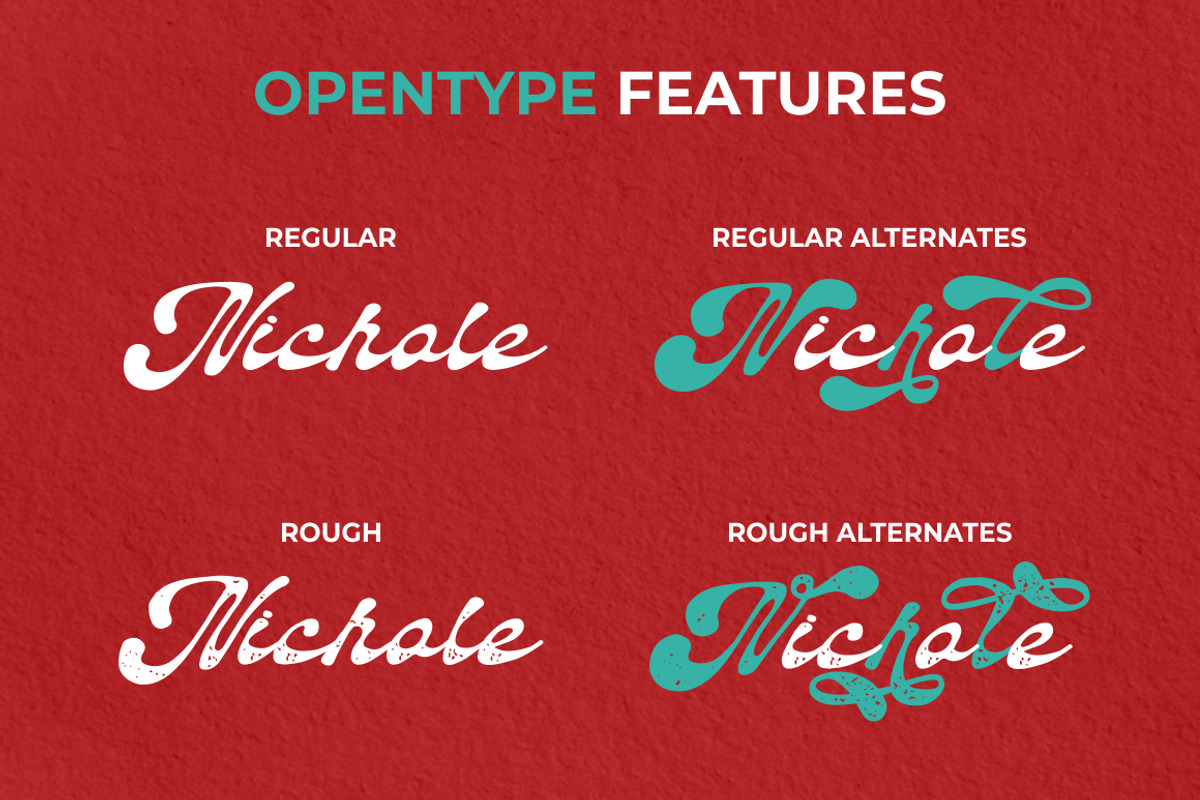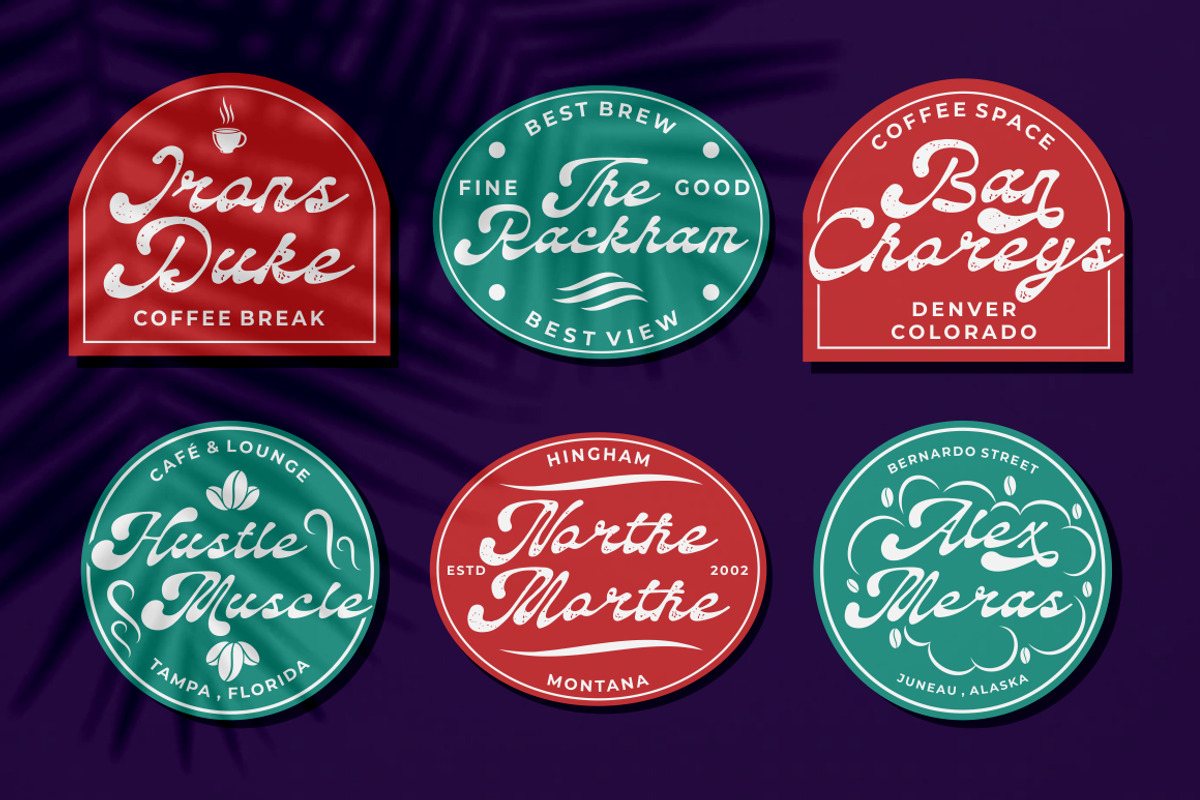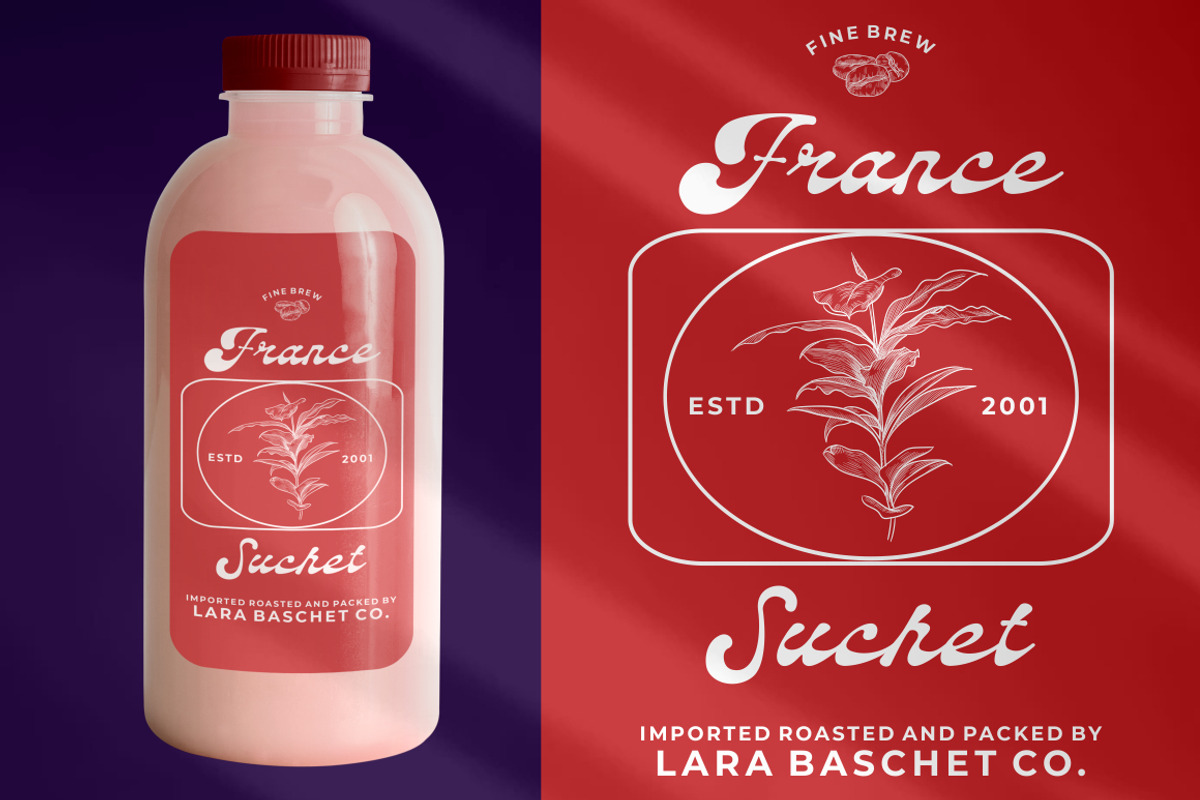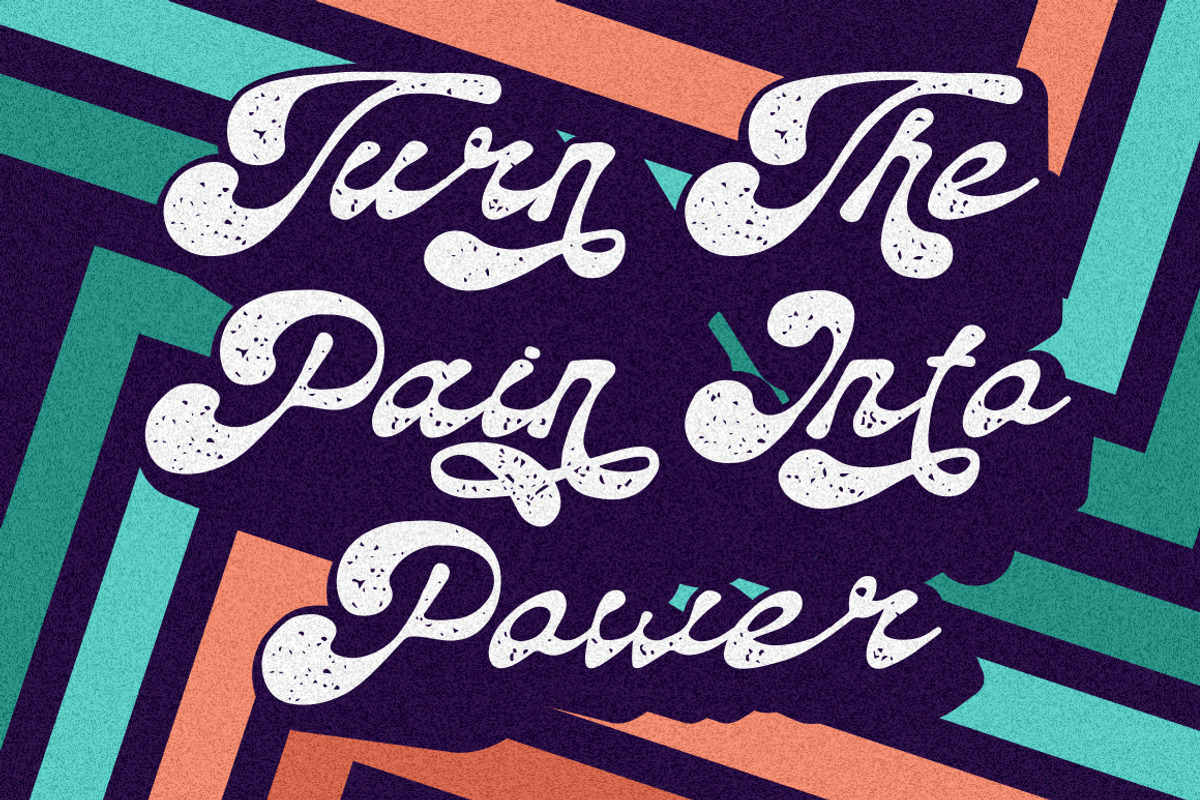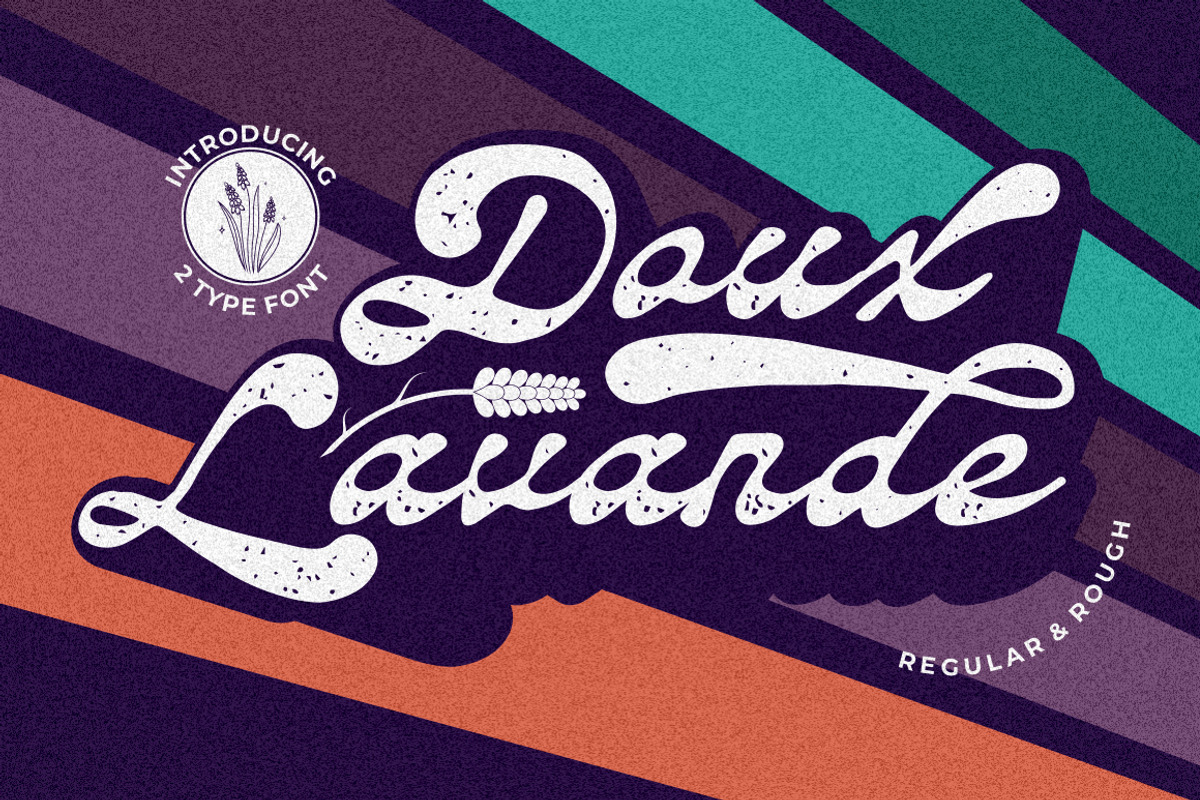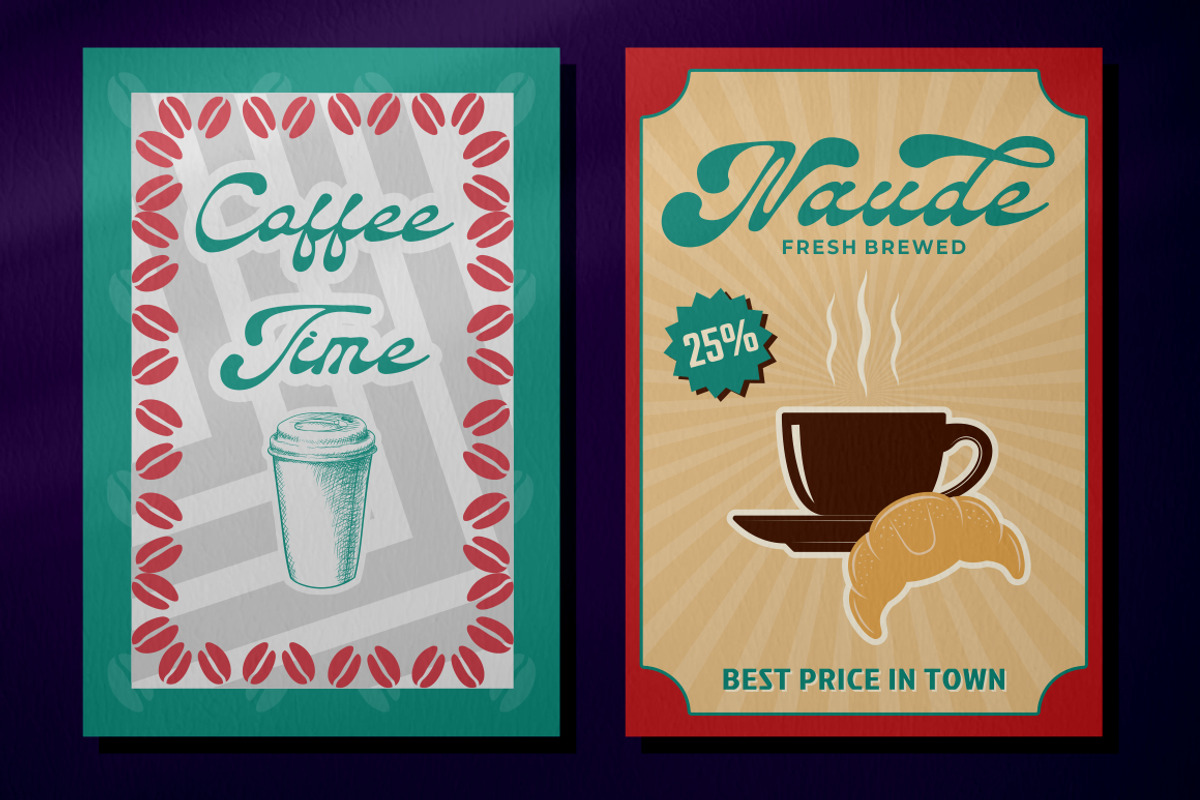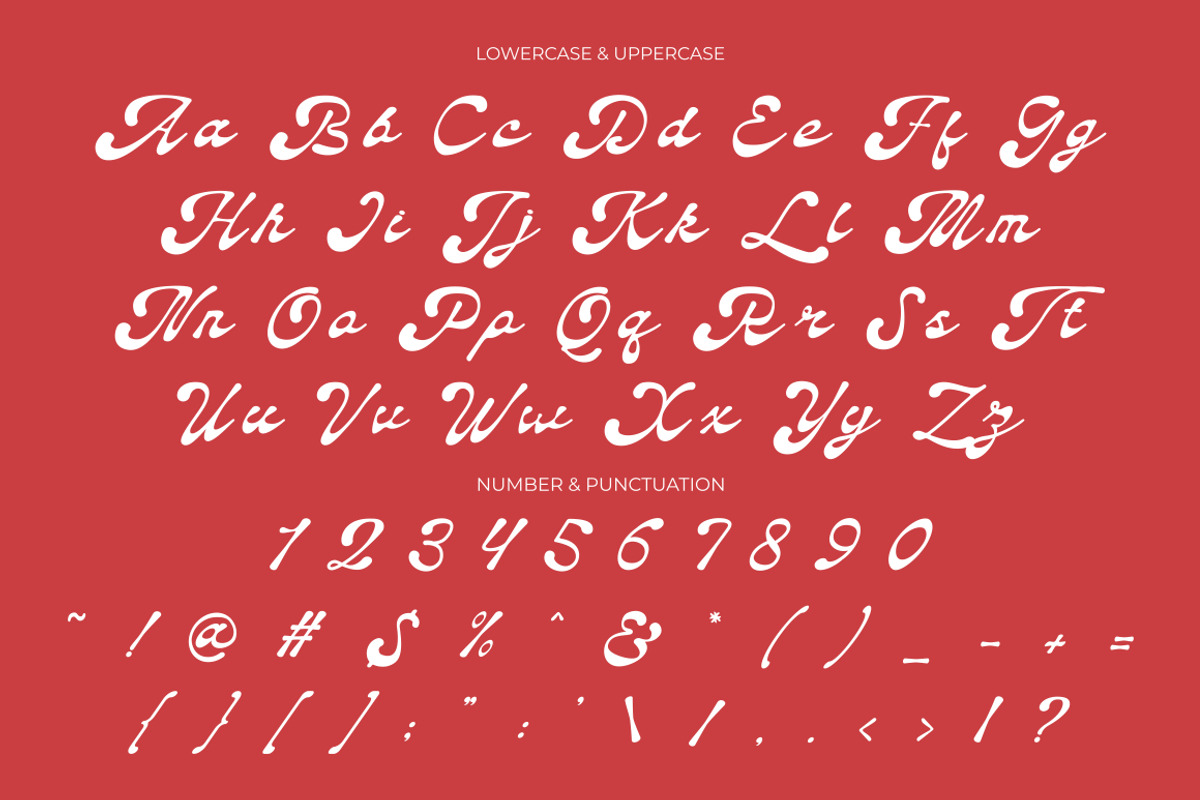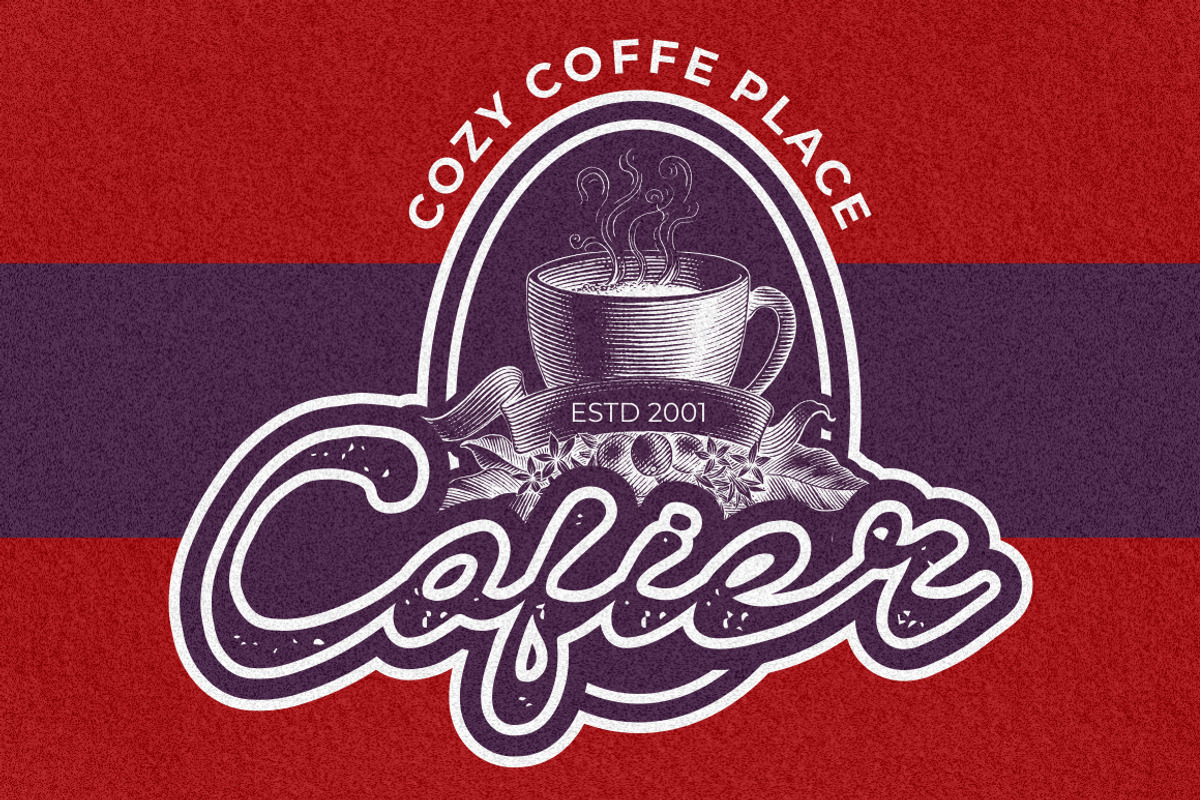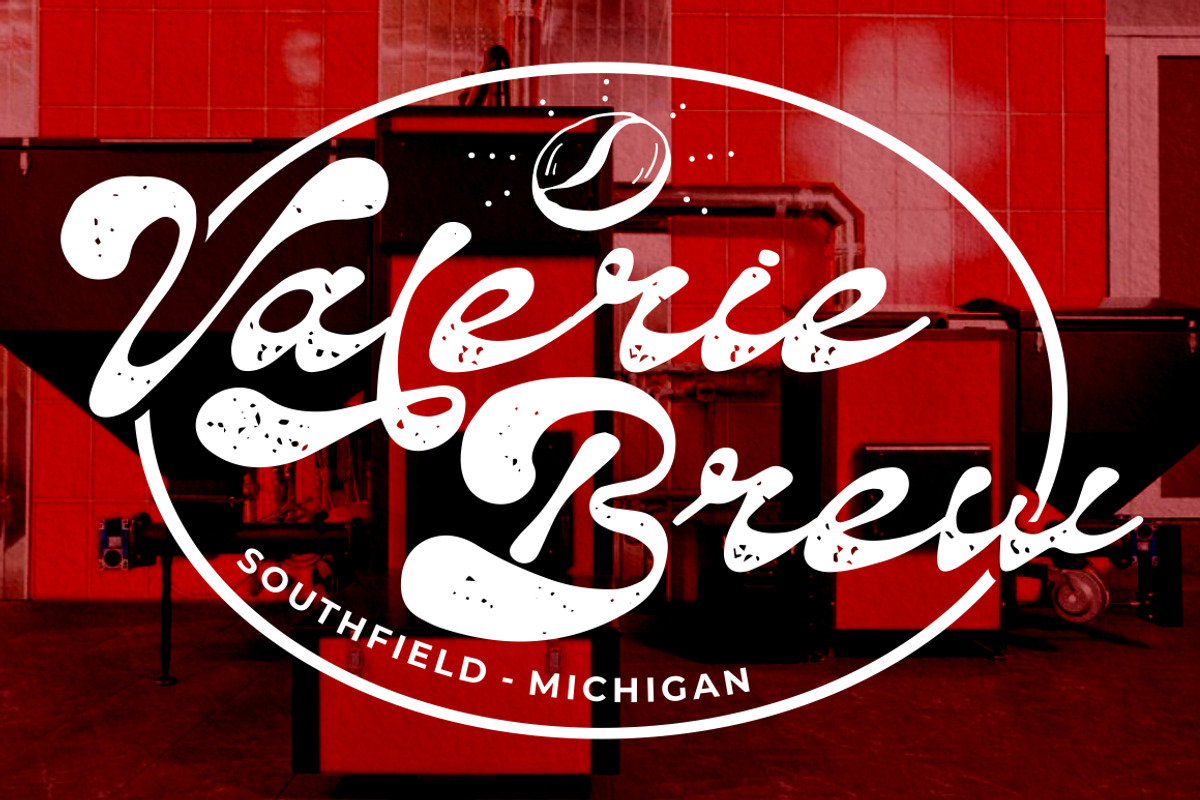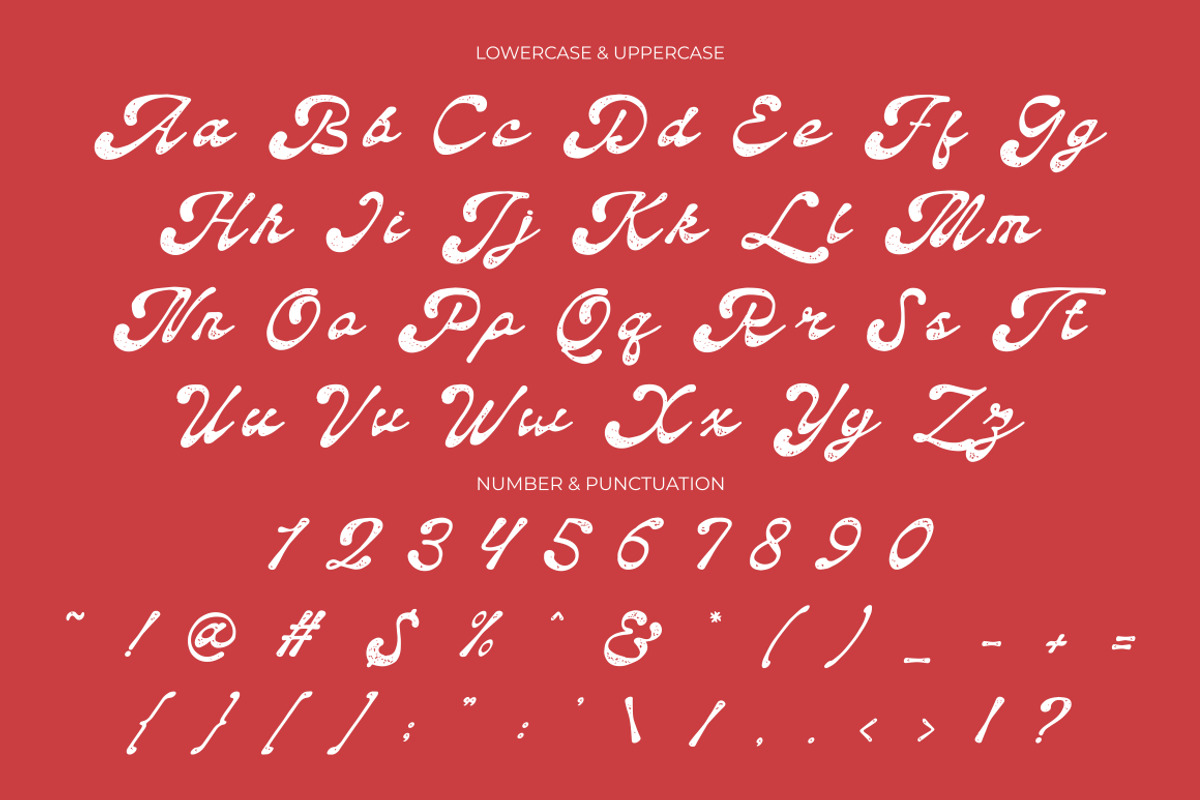
Daux Lavande - Display Font
Daux Lavande - Display Font is a vintage script font with a groovy and bold style that captures the essence of retro aesthetics. This font is perfect for creating a nostalgic and eye-catching visual impact in various design projects. Its unique character and vintage charm make it an ideal choice for food and beverage branding, stickers, posters, and other businesses seeking a touch of vintage flair.
With Daux Lavande - Display Font, you have the freedom to create captivating visuals for your food and beverage branding, sticker designs, posters, and more. Its vintage script style adds a nostalgic and authentic touch to your projects, while the bold and groovy appearance grabs attention and creates a vibrant visual impact. Install this font on different operating systems, including Windows and macOS, and utilize it across various design applications to achieve the desired aesthetic and enhance your branding efforts.